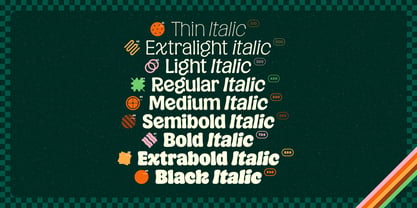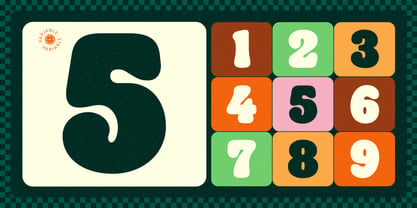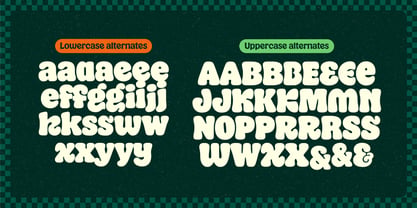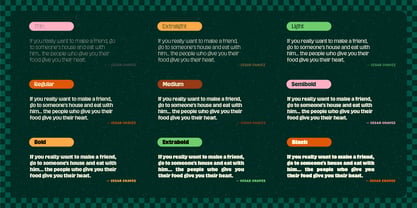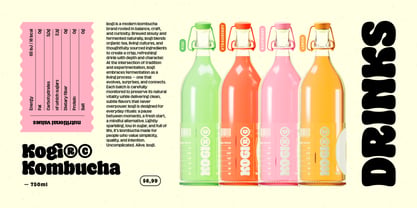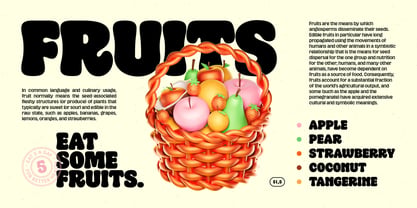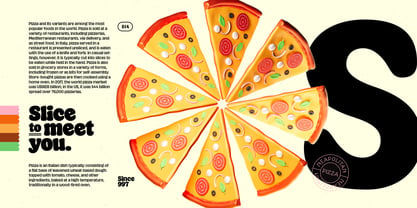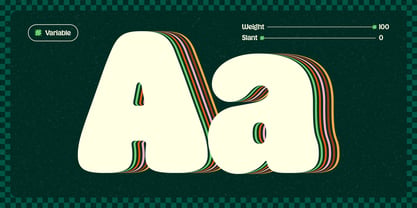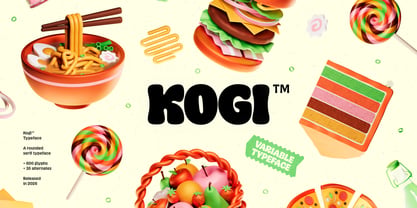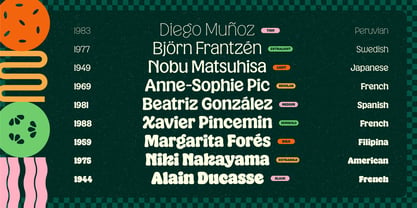
Kogi
par Almarena
La famille de polices Kogi a été conçue par Jérémie Gauthier et publiée par Almarena. Kogi contient 19 styles et options de package familial. En savoir plus sur cette famille
Kogi™ is a rounded serif typeface that combines generosity, impact, and readability. It is variable along two axes: Weight and Slant. It is also available in a static version with 9 weights (+ italics), featuring multiple alternates and ligatures. Kogi™ supports 90 languages and includes 600+ glyphs per weight. Perfect for bold logos, eye-catching posters, magazine covers, and any visual identity that aims to be unique and impactful.